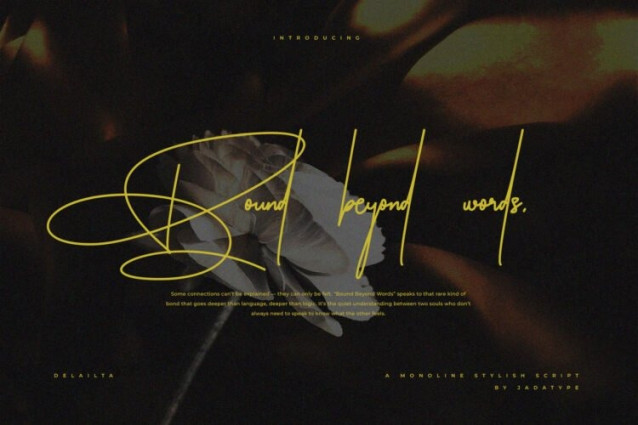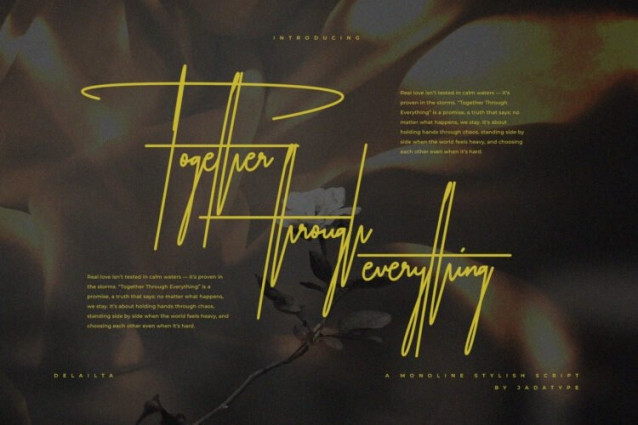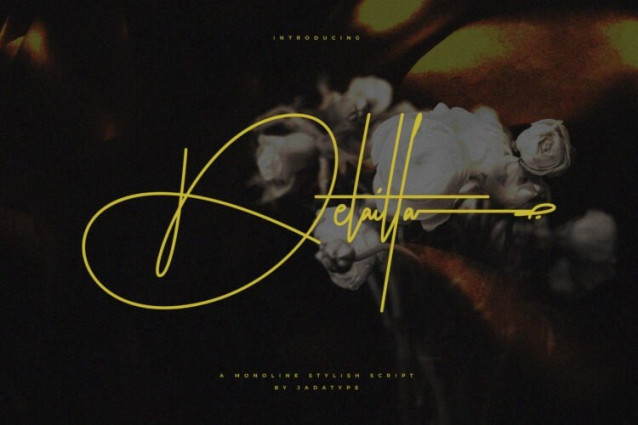
Delailta Handwriting Font
Delailta Handwriting Font is a script font that has a monoline signature style. suitable for logotype, branding, social media, products, advertisements, and so on. contains standard English letters, numbers, punctuation, and several accents that support multilingualism.